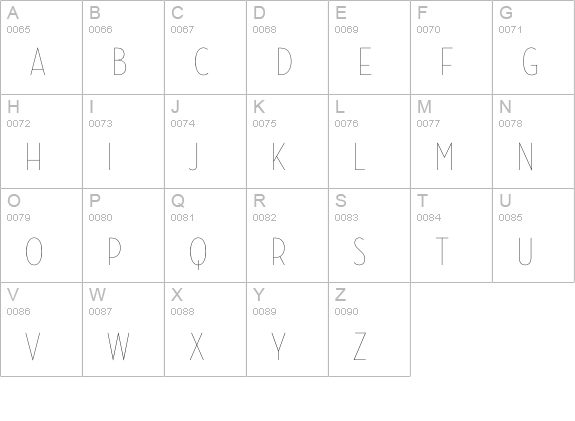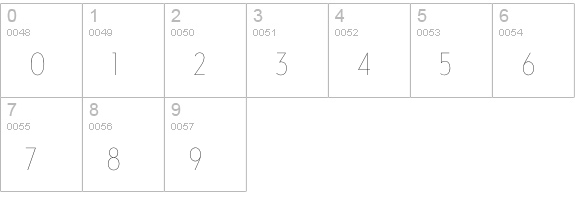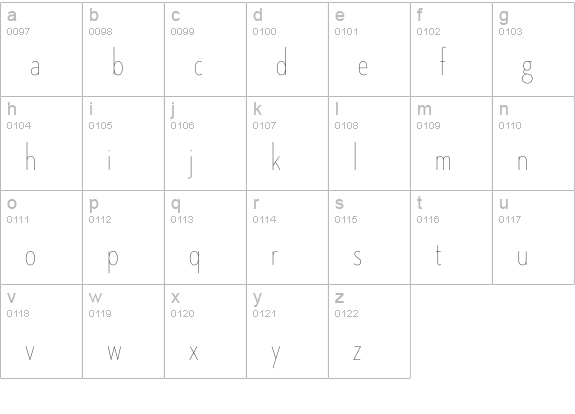
Neutraface Condensed Thin is a delicate, low-contrast, condensed-width variant in the Neutraface typeface family \xE2\x80\x94 well suited to fashion editorial, minimal branding, and high-contrast display.
Neutraface Condensed Thin font is a sleek and modern typeface that exudes elegance and sophistication. With its clean lines and minimalist design, this font is perfect for creating a sleek and professional look in your designs. The thin weight of the font adds a delicate touch, making it ideal for use in headings, logos, and other design elements where a refined and sophisticated appearance is desired. And the best part? Neutraface Condensed Thin font is available for free download at FontsMarket.com. Whether you're a designer looking to add a touch of class to your projects or a business owner wanting to elevate your brand's visual identity, this font is a fantastic choice. Download it today and start creating stunning designs with ease.